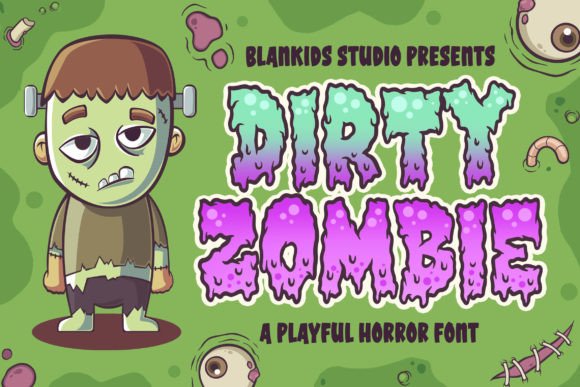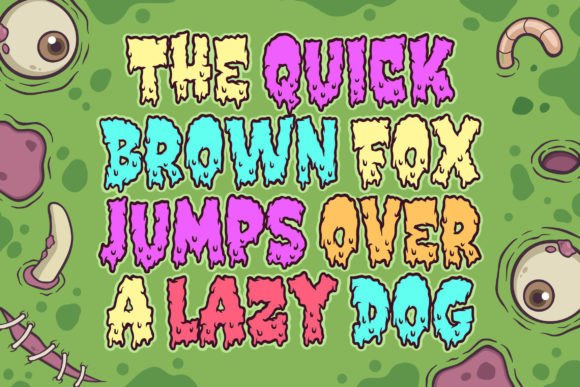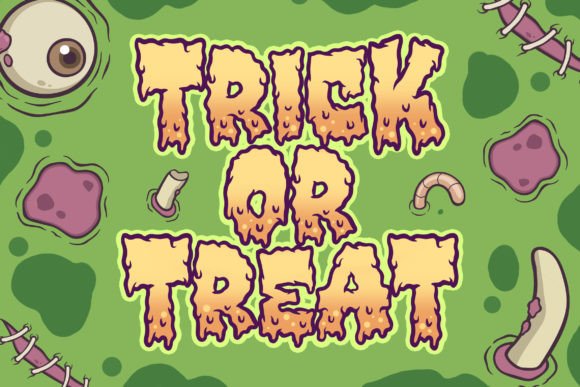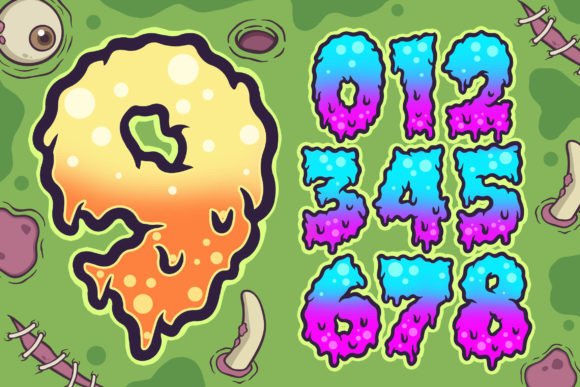
Dirty Zombie Font
About the Dirty Zombie Font
Discover the charm of Dirty Zombie Font. This font is a perfect blend of modern aesthetics and classic appeal. Dirty Zombie is a fun and cool horror display font. Spooky, quirky, and a little creepy, this font is perfect for all your Halloween or horror-themed projects.
Its bold, slightly irregular forms make Dirty Zombie ideal for headlines, posters, and short impactful statements in branding materials like logos or packaging for Halloween products, horror-themed merchandise, or edgy entertainment. Avoid using it for body text or long paragraphs; its quirky nature makes it hard to read at smaller sizes.
The font’s playful yet creepy personality pairs well with clean sans-serifs like Open Sans for a balanced contrast, or a more geometric sans-serif like Futura for a modern, slightly sinister feel. Consider a script font like Great Vibes for invitations or branding that requires a touch of vintage horror.
Ultimately, Dirty Zombie is best suited for projects needing a strong visual punch with a playful horror vibe. Its personality is bold and attention-grabbing, making it unsuitable for applications requiring high readability or a sophisticated, refined aesthetic.